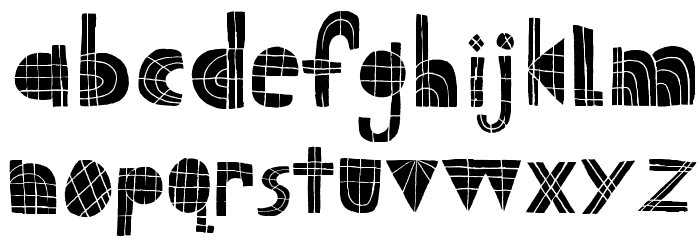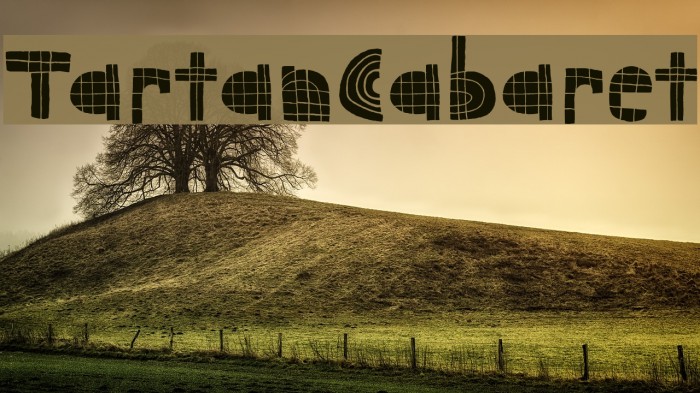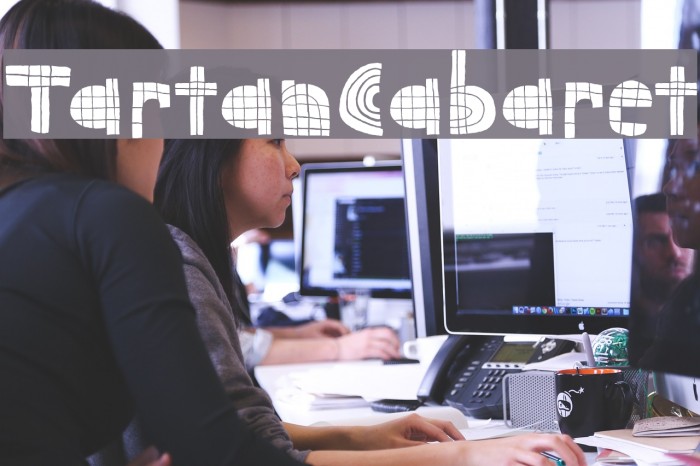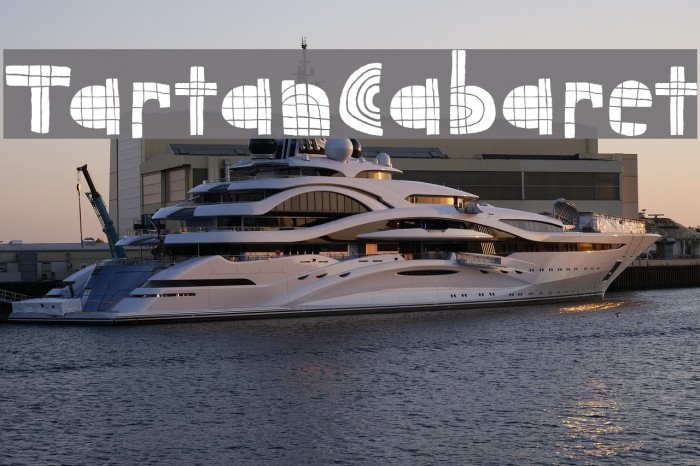
TartanCabaret Font
This font features a bold and playful design with a tartan pattern integrated into each character. The letters are constructed with a mix of geometric shapes and lines, creating a dynamic and eye-catching appearance. The uppercase and lowercase letters maintain a consistent style, with the tartan pattern adding a unique texture. Numbers and special characters are also designed with the same pattern, ensuring uniformity across all elements. The font's distinctive style makes it ideal for projects that require a touch of whimsy and creativity.
A bold, playful font with a tartan pattern and geometric shapes.
- Proposed Projects: Ideal for creative projects such as posters, event invitations, and branding that require a unique and playful touch.